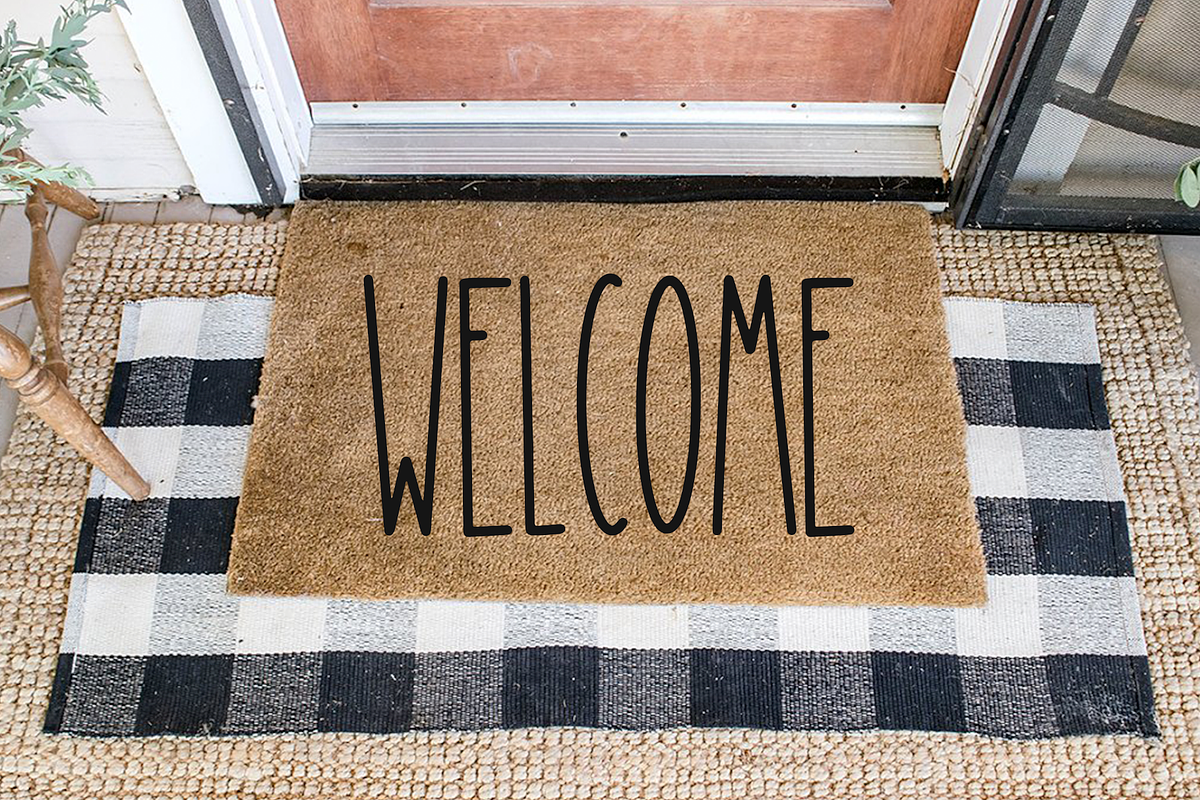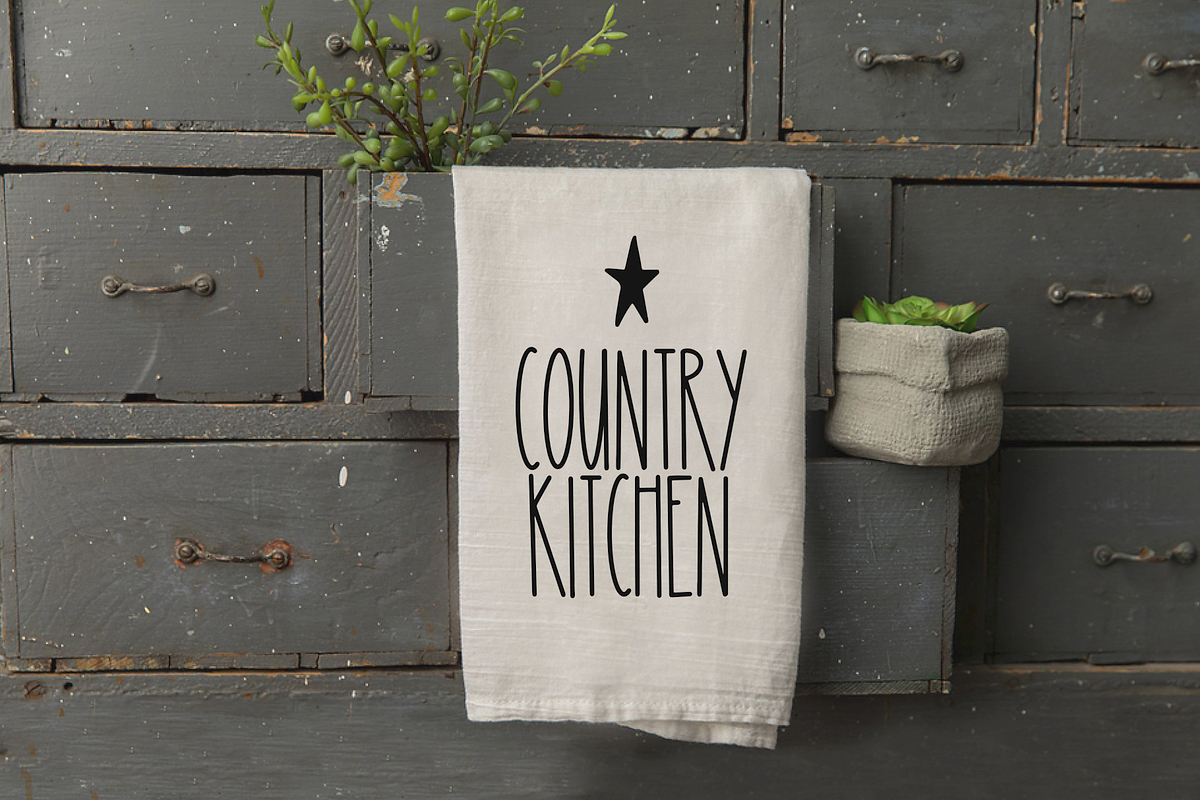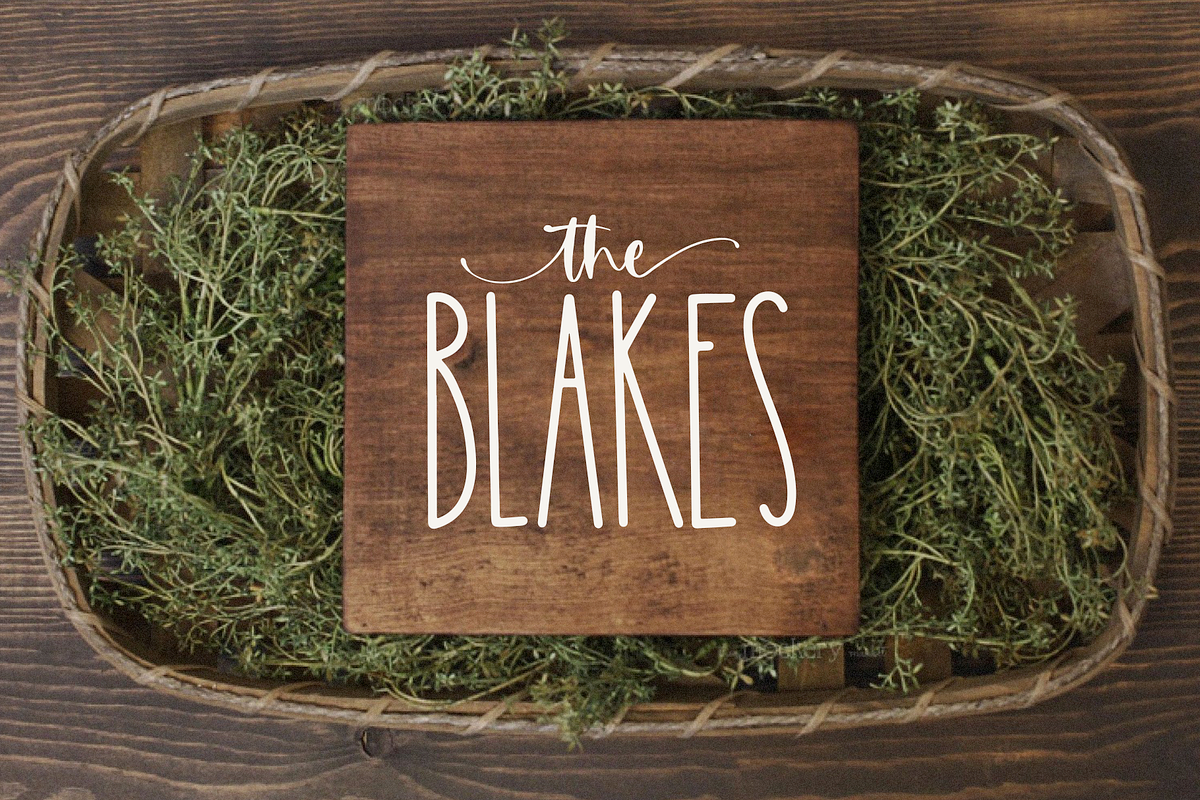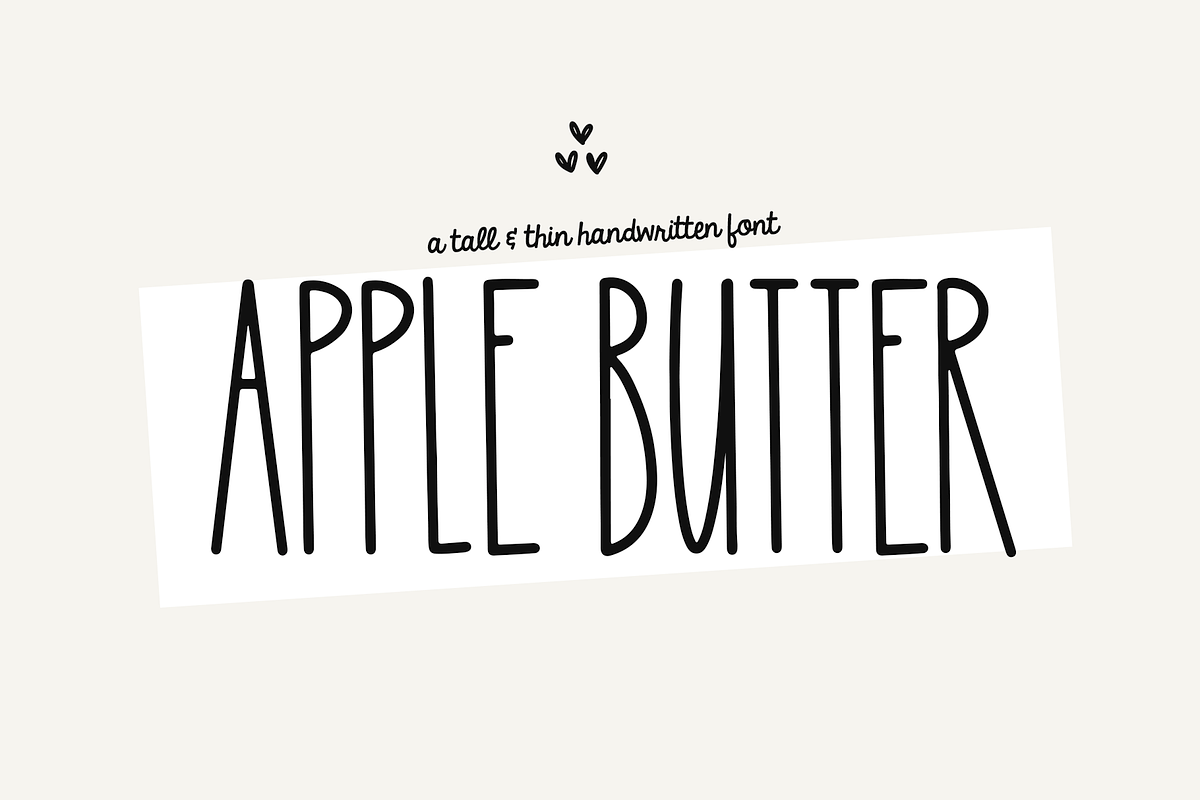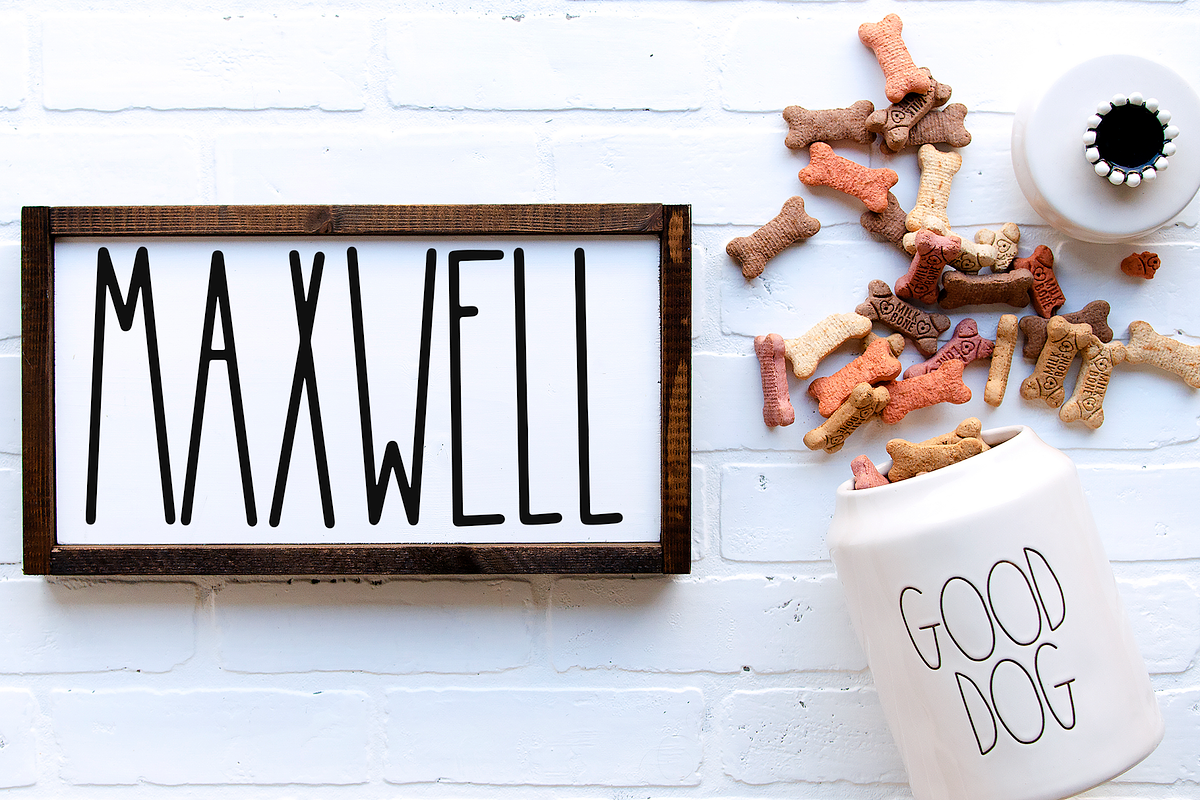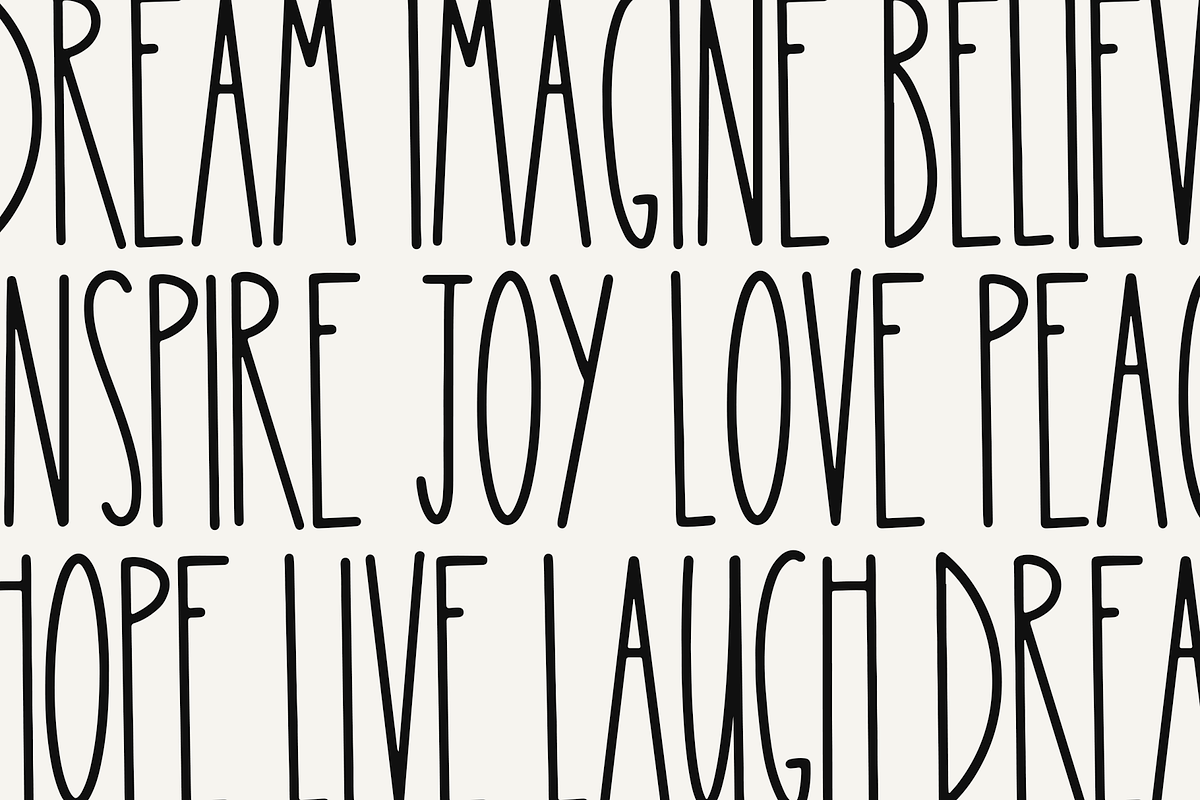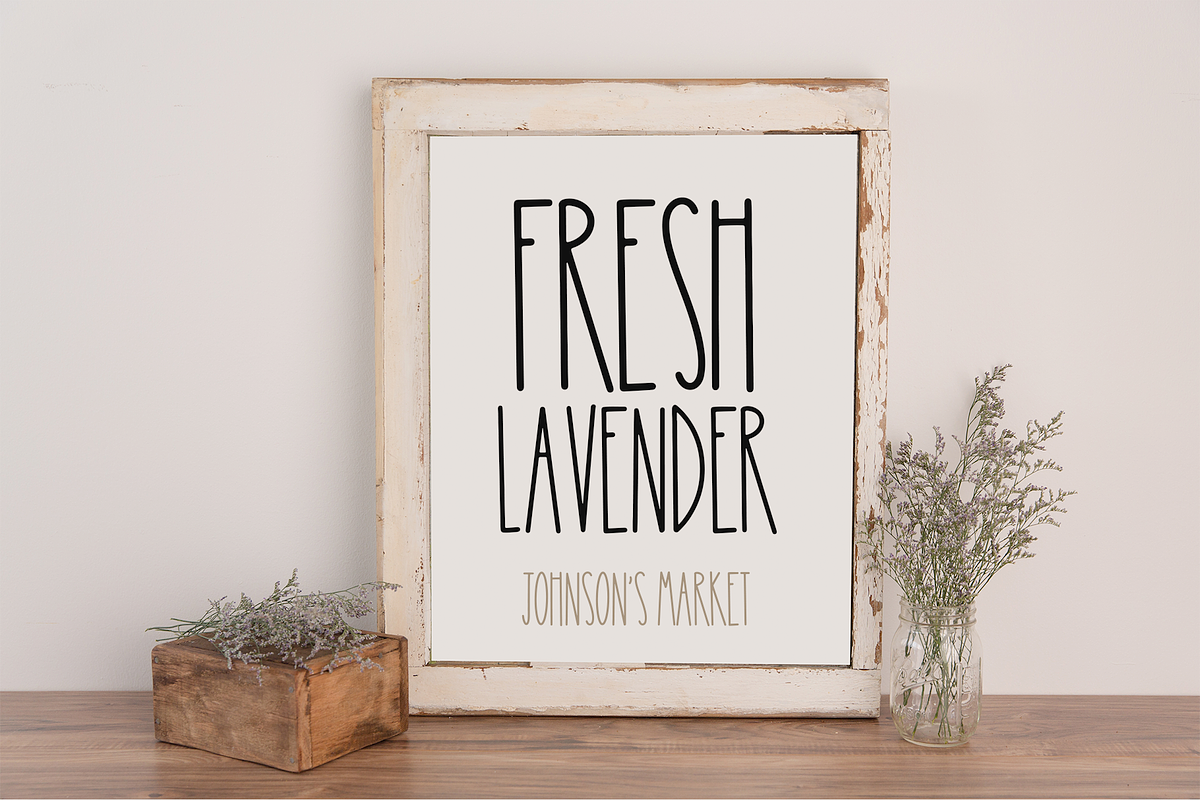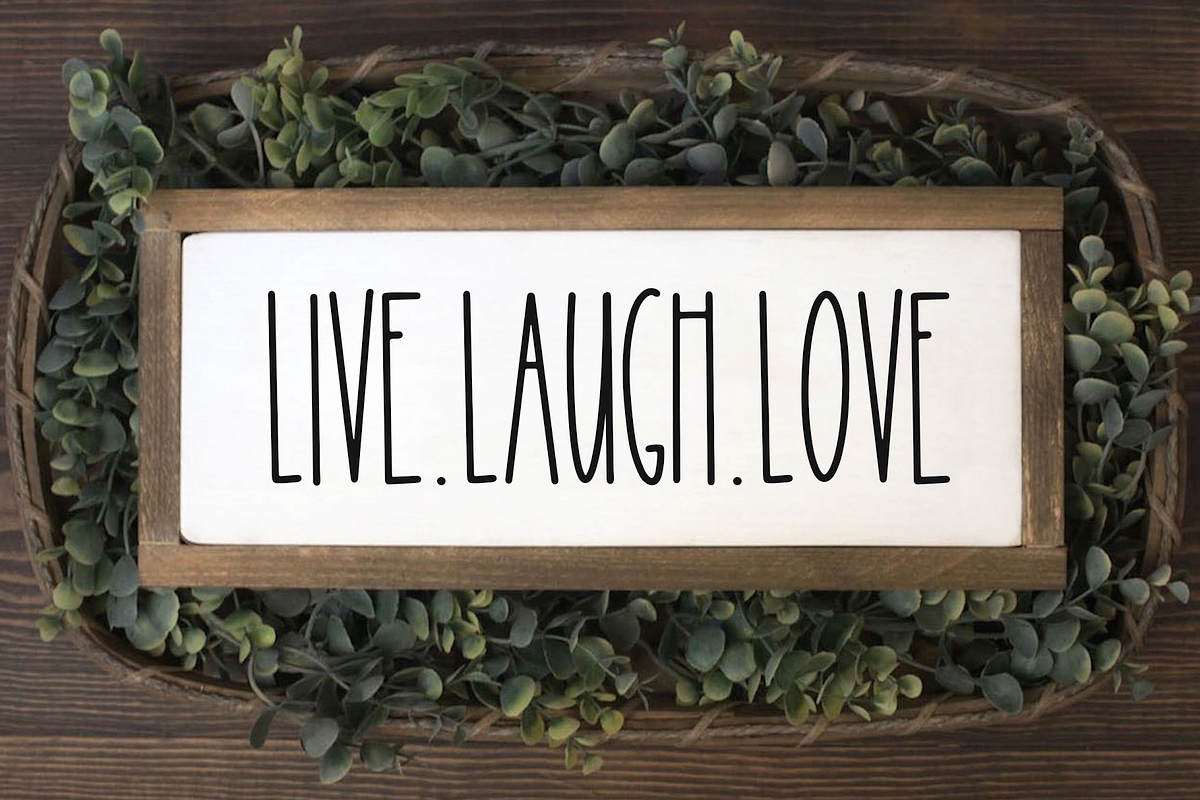
Apple Butter | Tall Handwritten Font
Apple Butter is a tall + thin font perfect for your home decor and craft designs.
This font is especially perfect for shirt designs, country decor, farmhouse signs, websites, branding, children's designs, svg designs, blogs, logos, invitations and more!
Most accents included.